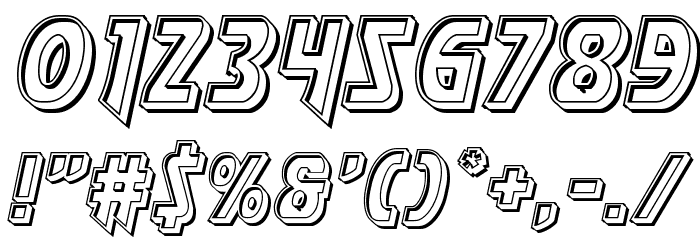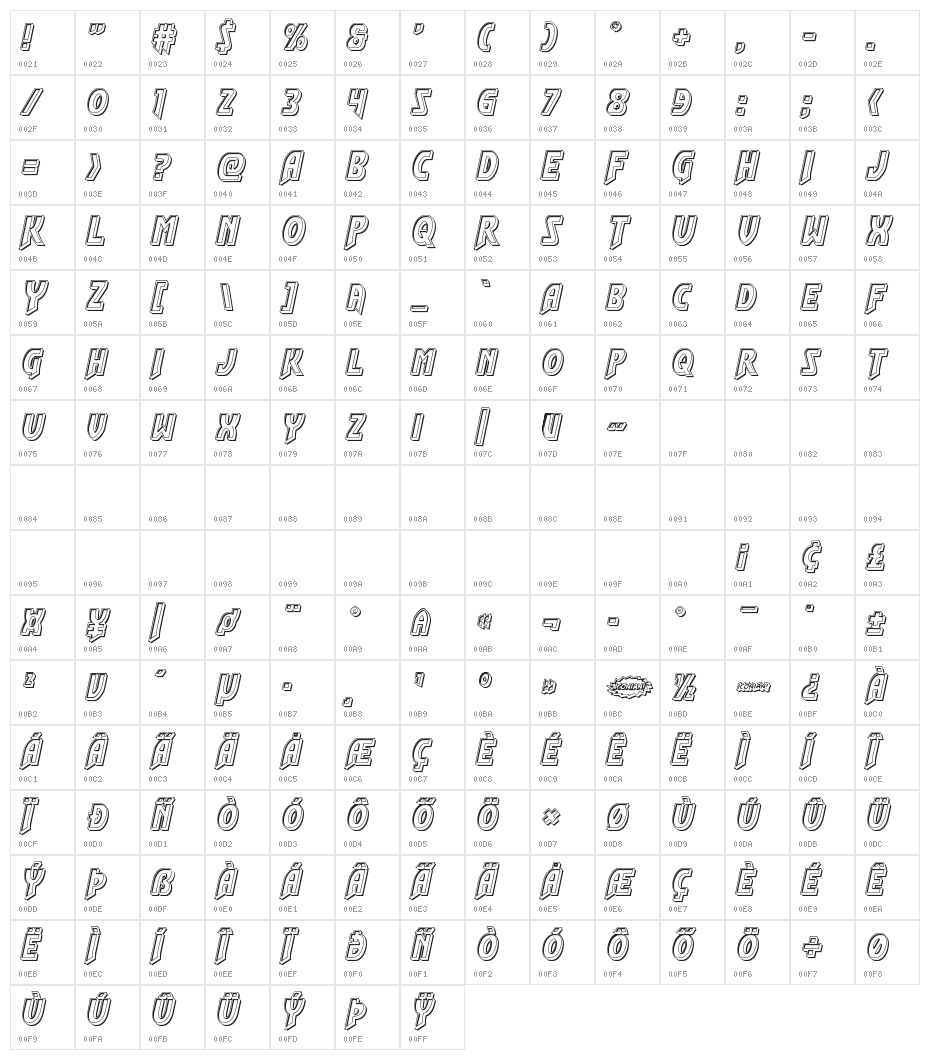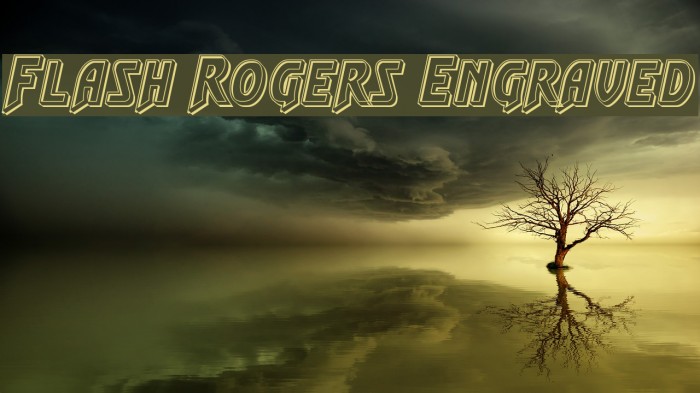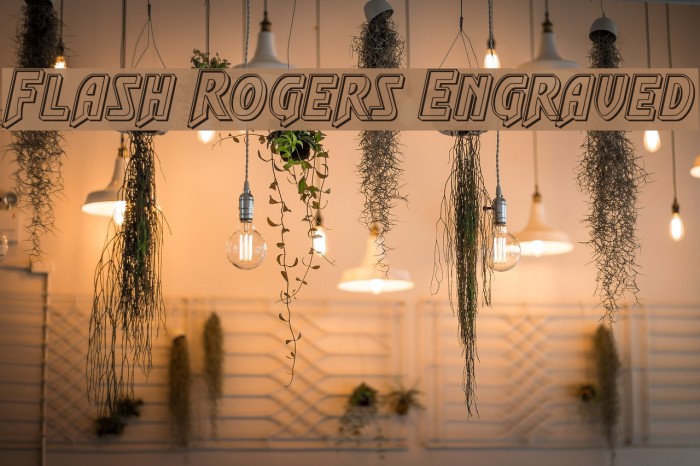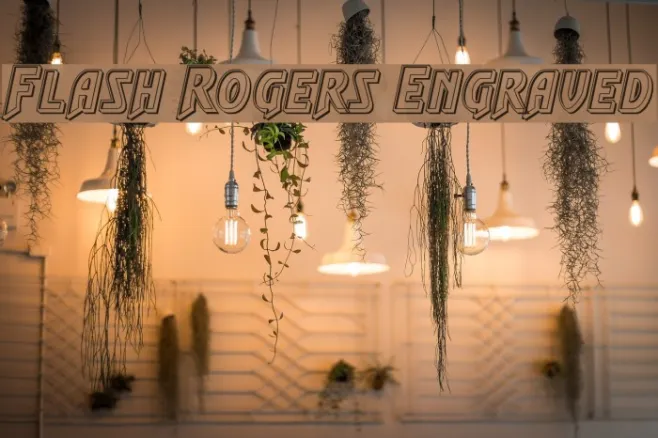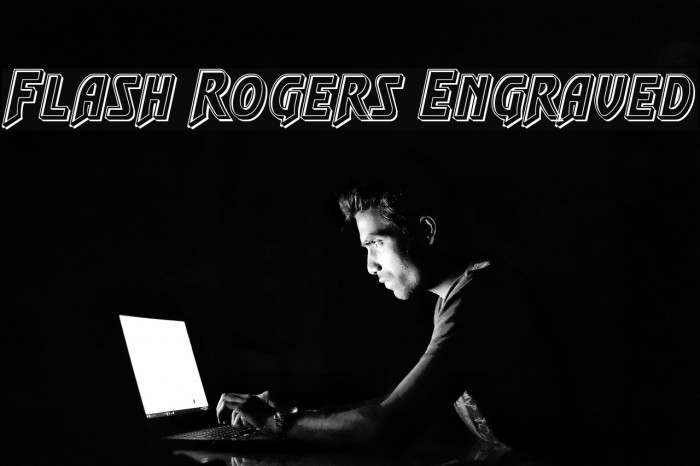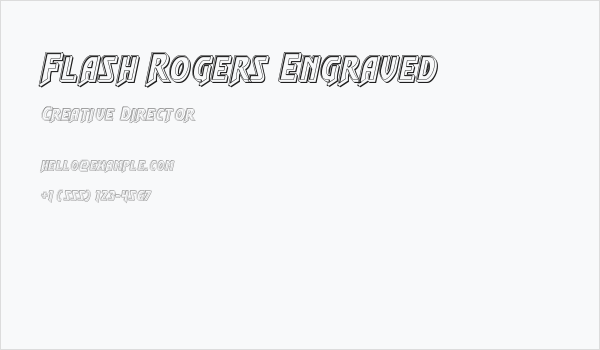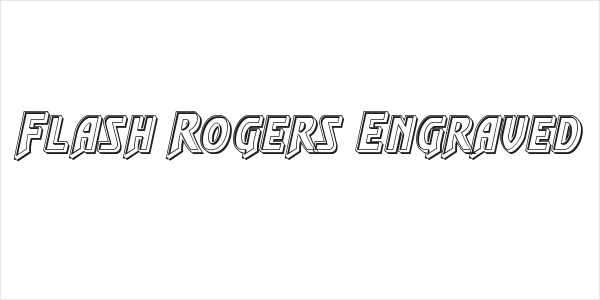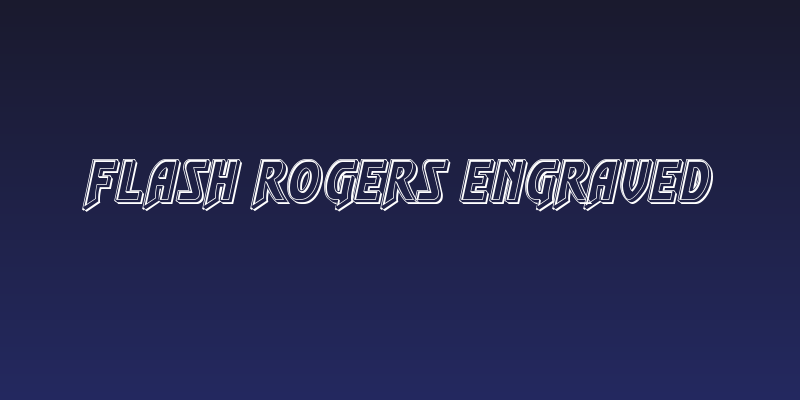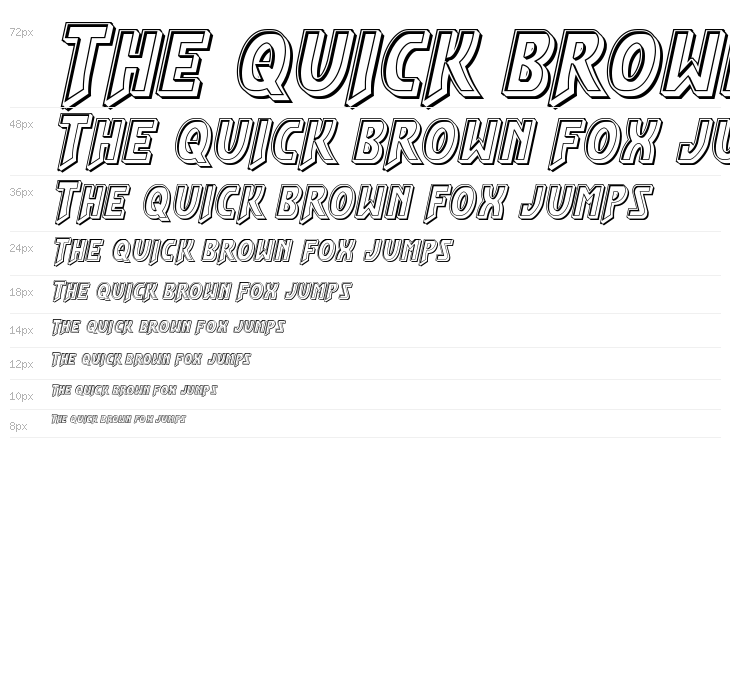
Flash Rogers Engraved Font
Flash Rogers Engraved Description
This font features a bold, three-dimensional style with a distinct engraved effect. Each character is outlined with a shadow that gives it a dynamic, eye-catching appearance. The letters are uppercase and have a strong, geometric structure, making them stand out prominently. The numbers and special characters follow the same design, ensuring consistency across all glyphs. The font's unique style is reminiscent of retro or comic book aesthetics, providing a sense of movement and energy.
| Overall Style | Retro, Dynamic, Engraved |
| Proposed Projects | Ideal for comic book titles, retro-themed posters, video game graphics, and branding that requires a bold statement. |